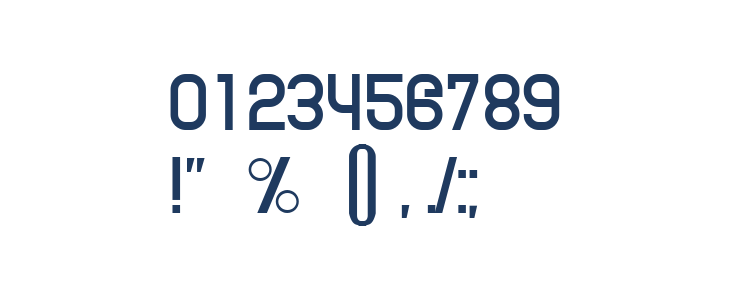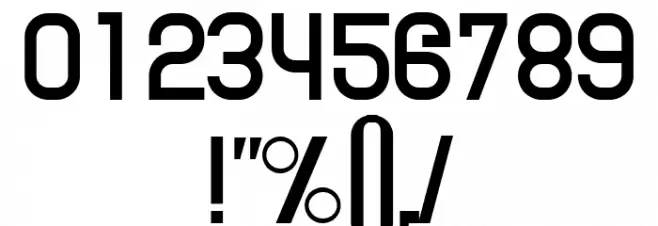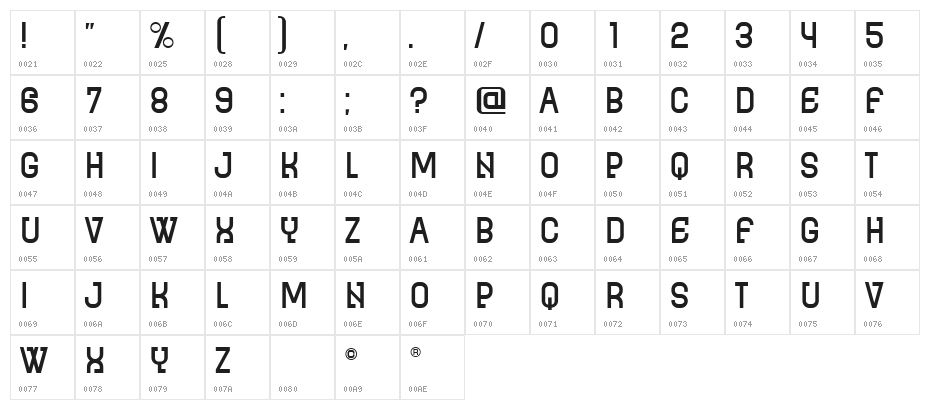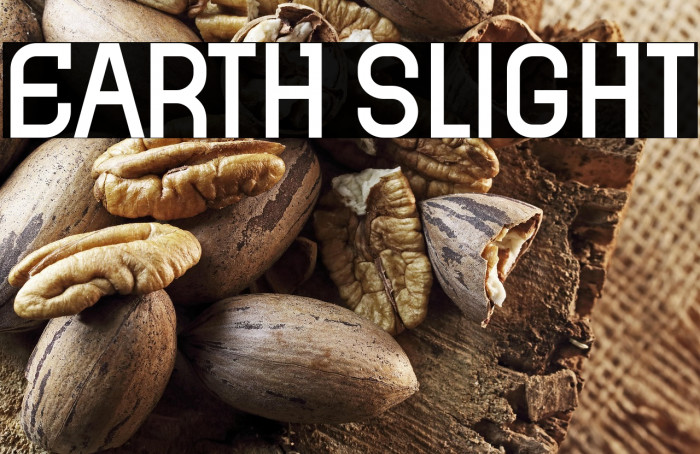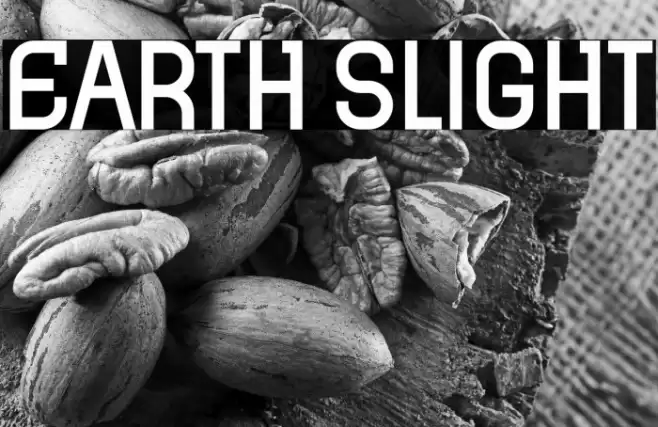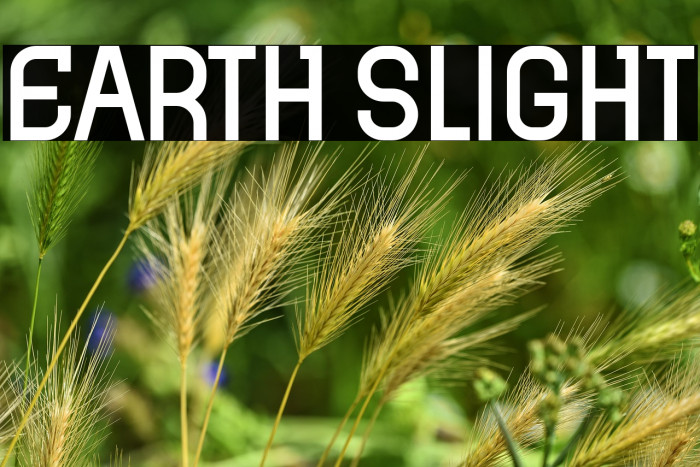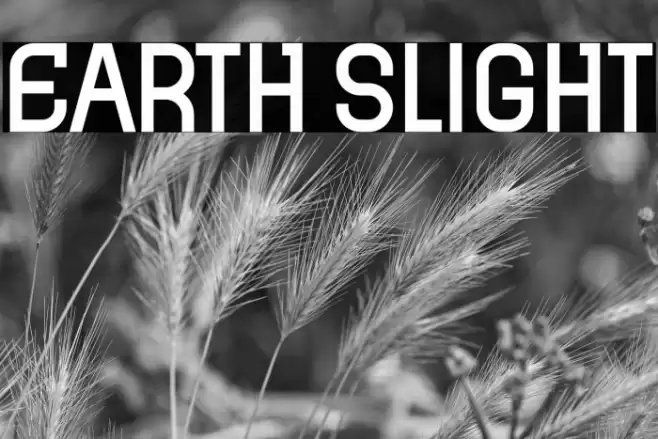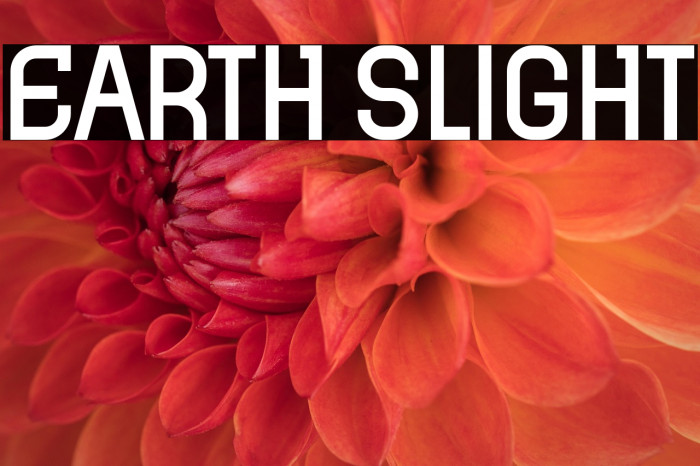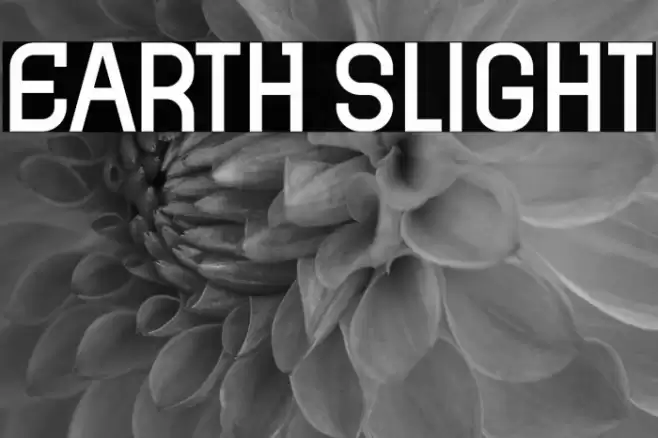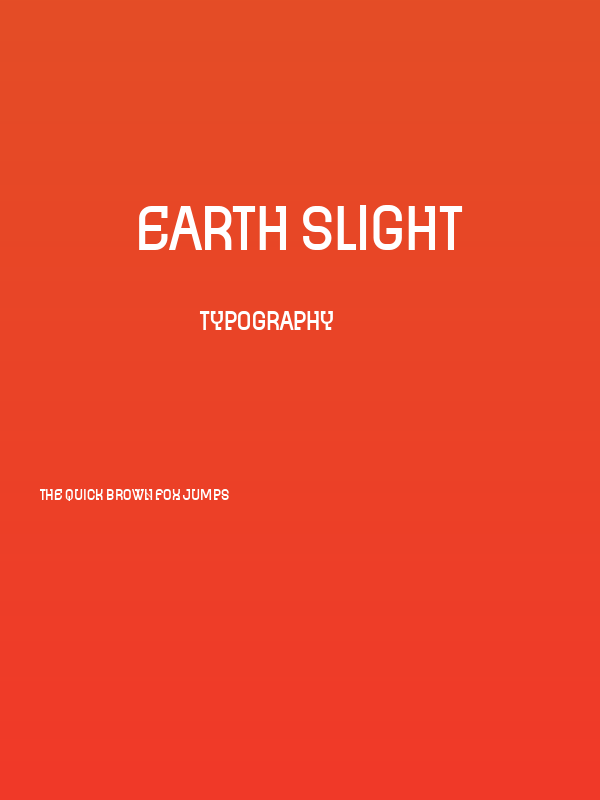
Earth Slight Font
Earth Slight Description
This font features a modern and geometric design with clean, straight lines and a uniform stroke width. The characters are bold and slightly condensed, giving them a strong presence on the page. The uppercase letters have a distinctive style with unique elements, such as the crossbar on the 'A' and the angled cut on the 'G'. The lowercase letters maintain the geometric theme, with rounded edges that add a touch of softness to the overall look. The numerals are consistent with the letterforms, offering clarity and readability. Special characters are included, each designed to match the font's overall aesthetic. This typeface is versatile, suitable for a variety of design projects that require a contemporary and impactful look.